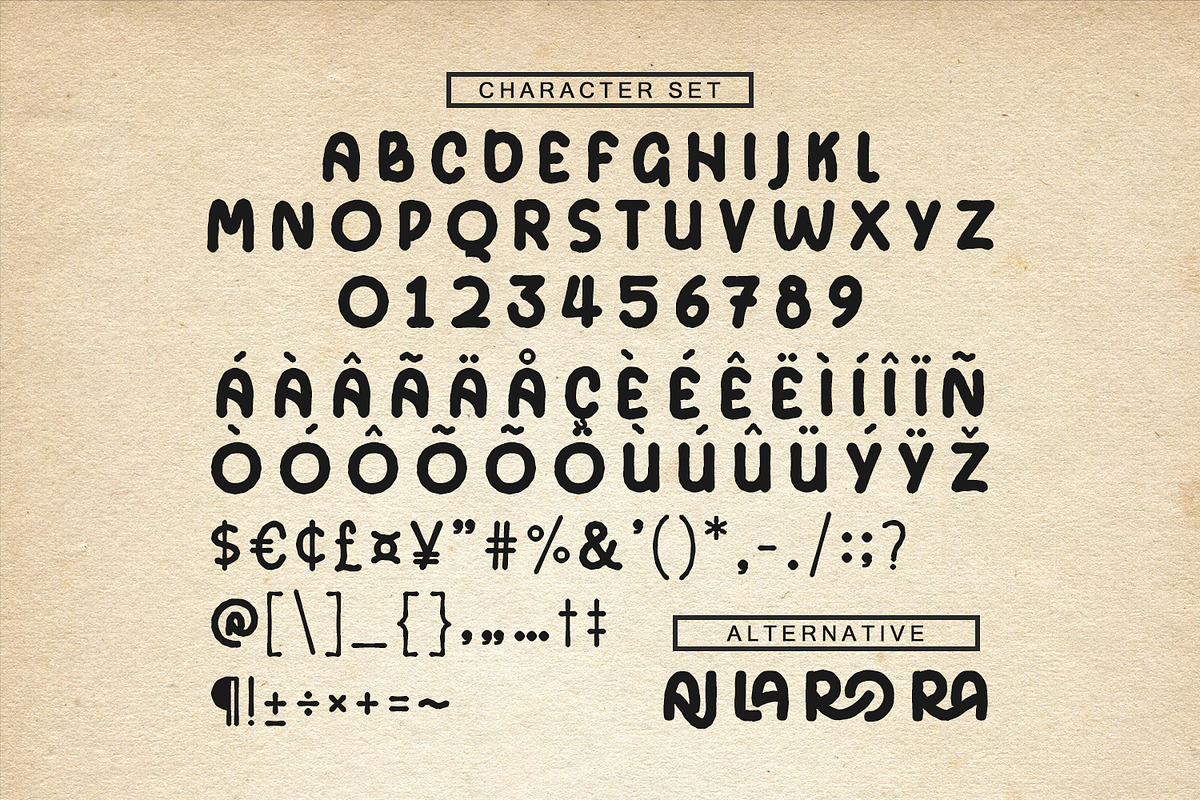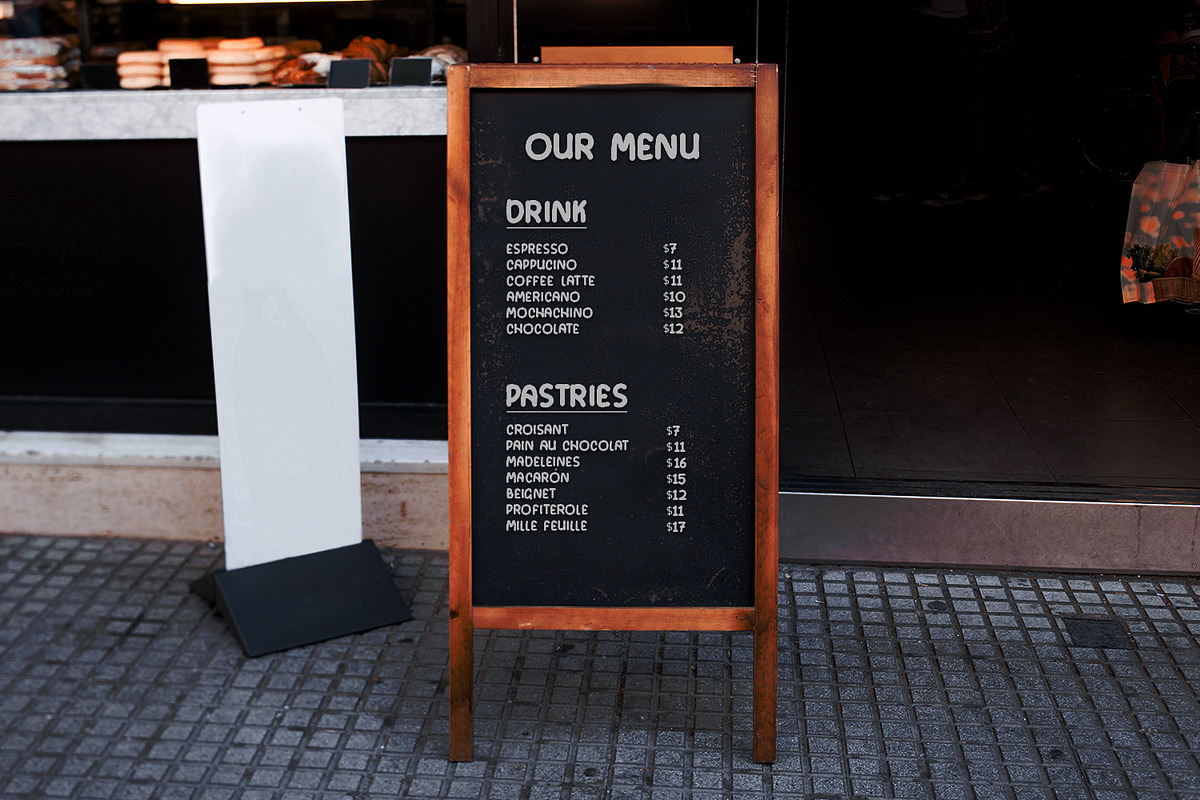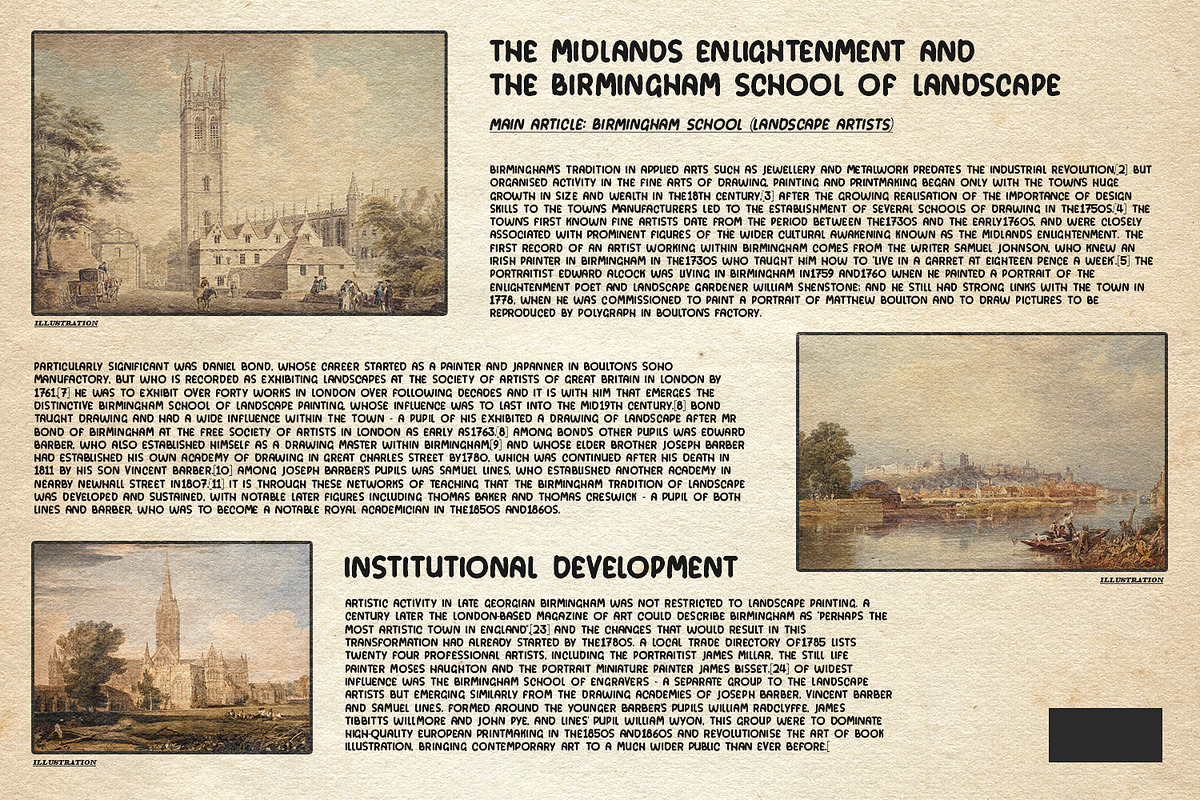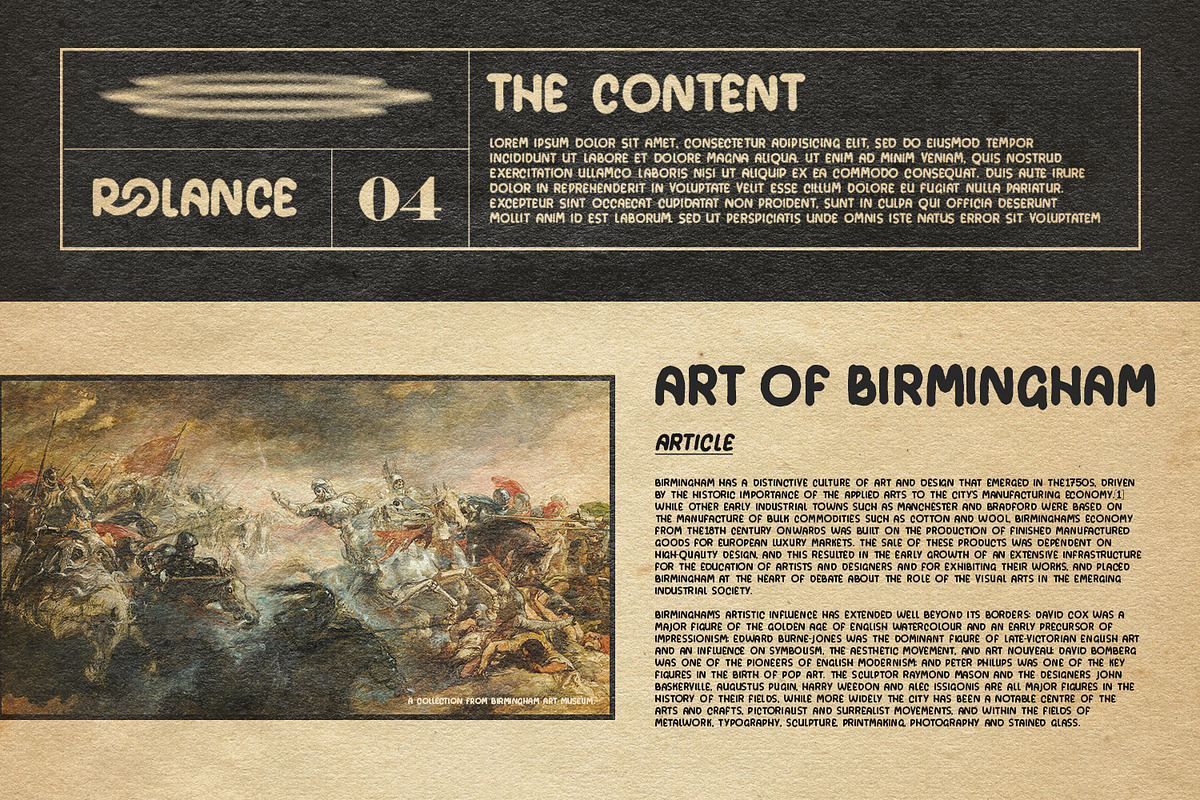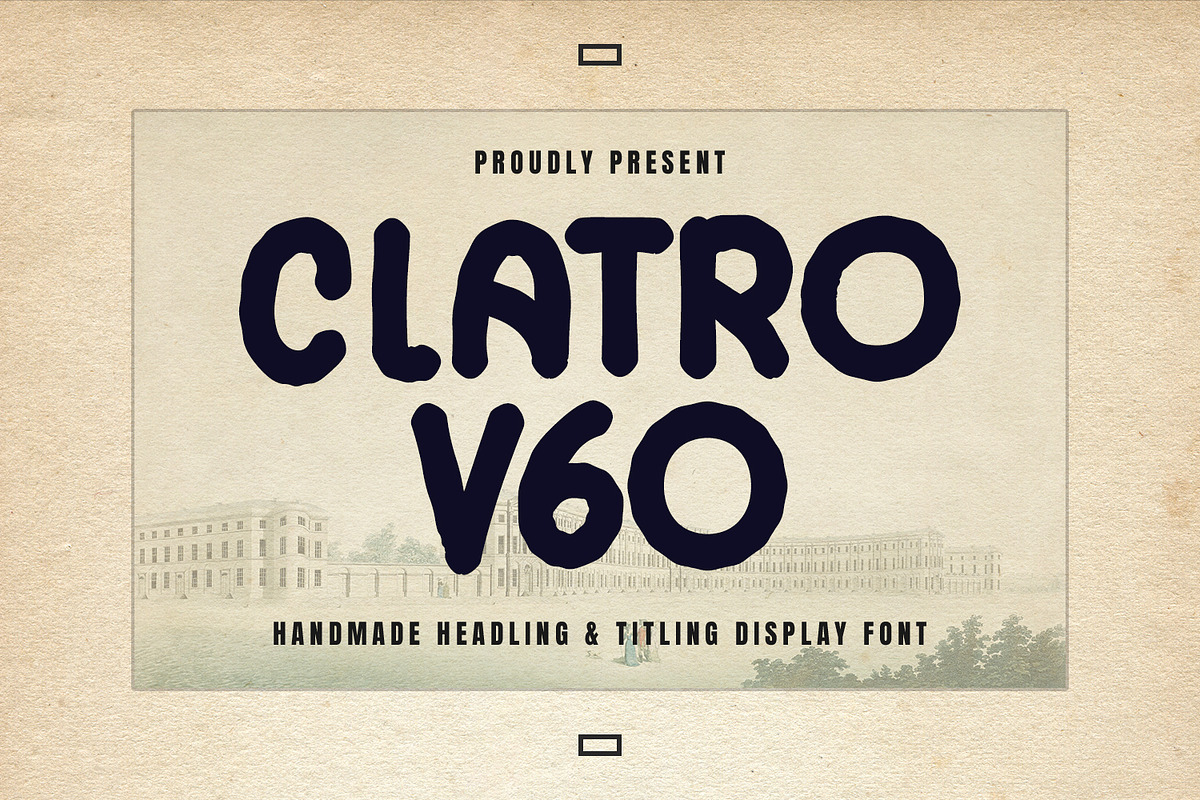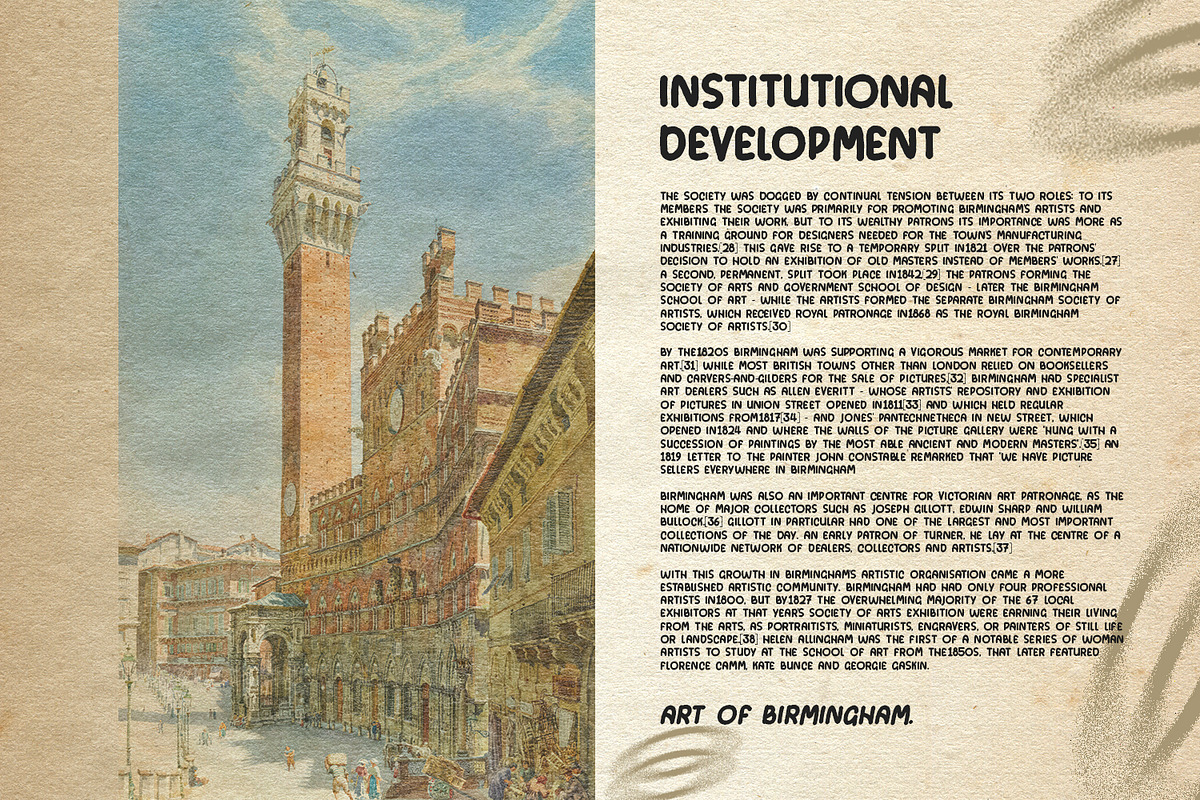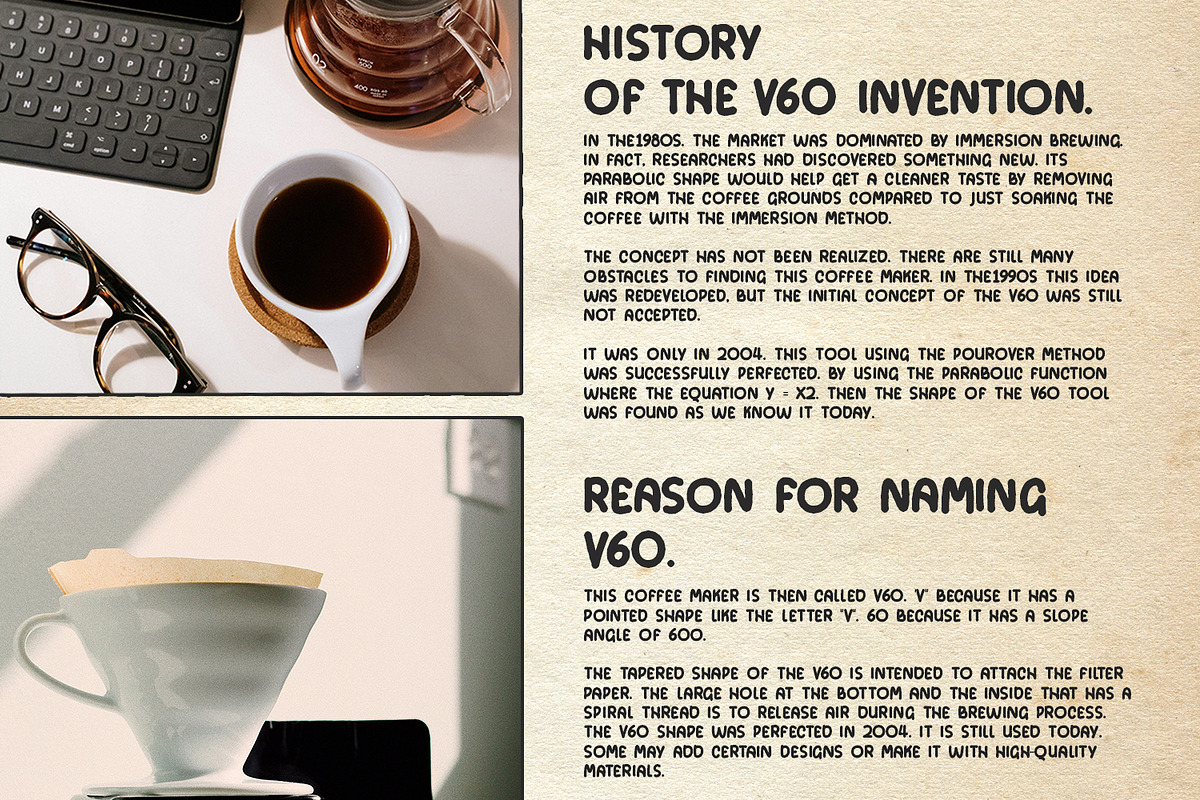
Clatro V60 Handmade Headline Titling
Clatro V60 is a vintage casual titling font. With bold stroke, fun character with a bit of ligatures. To give you an extra creative work. Clatro V60 font support multilingual more than 100+ language. This font is good for logo design, Social media, Movie Titles, Books Titles, a short text even a long text letter and good for your secondary text font with sans or serif. Make a stunning work with Clatro V60 font.